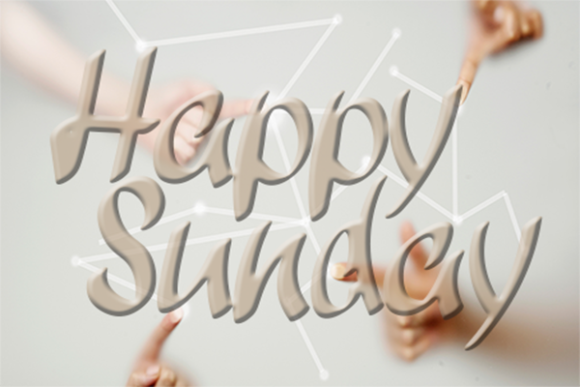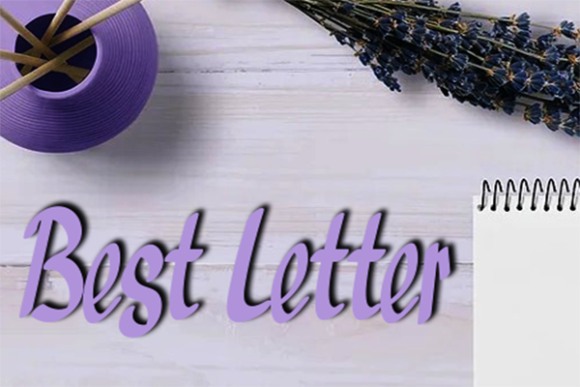
The Perfect Blend of Creativity and Style: Best Letter Font
Have you ever been working on a project, and suddenly, a spark of inspiration hits you? The ideas start flowing, and you can’t wait to bring them to life. For designers, this moment is pure magic. It’s the moment when the right font can make all the difference.
Enter the Best Letter Font – a flowing handwritten font that adds a trendy touch to any project. With its incredibly distinct and timeless style, this font is perfect for creating spectacular designs that leave a lasting impression. Whether you’re a seasoned designer or just starting out, the Best Letter Font is an invaluable tool in your creative arsenal. Its versatility and unique character make it a valuable addition to any design project.
Key Features of “Best Letter Font”
- Unique Characteristics: Features a customized letterform design with subtle flair and rounded edges, creating a friendly and approachable aesthetic.
- Kerning and Ligatures: Includes advanced kerning and ligature pairs for precise text rendering and a polished look.
- Style Variations: Offers 6 style variations, including Regular, Italic, Bold, Bold Italic, and two additional decorative styles for added creativity.
Designer Review: “Best Letter Font”
First off, I have to say that I was quite excited to try out “Best Letter Font”. The font’s clean lines and elegant curves caught my eye, and I thought it had a lot of potential. ✨ I was particularly impressed with how well it worked for headings and titles – it really added a touch of sophistication to any text.
However, upon further inspection, I started to notice some limitations. ⚠️ For one, the font’s legibility suffers a bit when used for large blocks of text. The letterforms start to get a bit fuzzy and difficult to read, especially at smaller sizes. Additionally, I found that the font’s x-height is a bit too short, making it harder to read for people with visual impairments.
- Clean lines and elegant curves
- Well-suited for headings and titles
- Good for body text at larger sizes
- Legibility suffers at larger sizes
- X-height is too short
- May not be suitable for people with visual impairments
Overall, I would say that “Best Letter Font” is a solid choice for specific use cases, but it’s not a one-size-fits-all solution. With some careful consideration and adjustments, it can be a great addition to your design arsenal. But for more general use, you may want to consider other options.
Best Letter Font Practical Application Guide
When using a best letter font, make sure to pair it with a clear and concise message. Use the font to create visual interest and emphasize important information. Also, be mindful of font sizes and use headings and subheadings to create a clear hierarchy of information.
Best letter fonts are commonly used in invitations, business cards, and brochures. They are also used in digital media such as websites and social media posts. The key is to use the font in a way that complements the message and enhances the overall design.